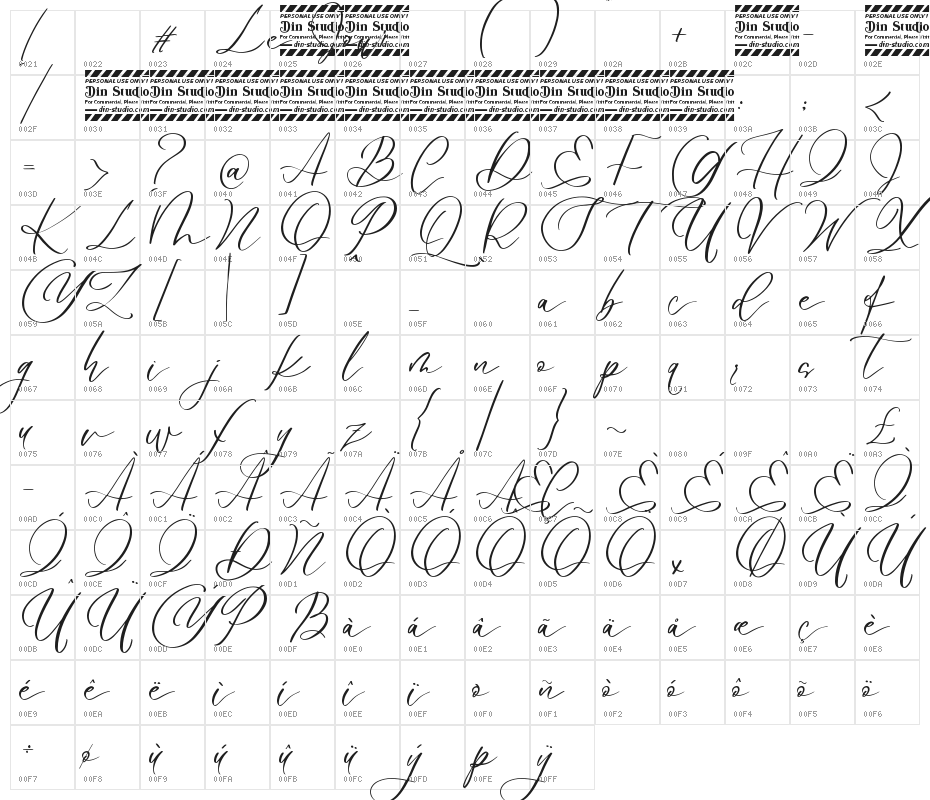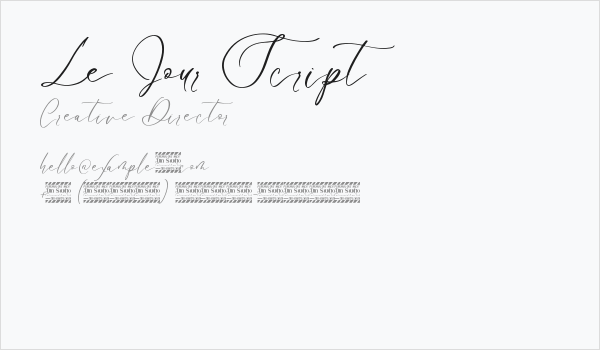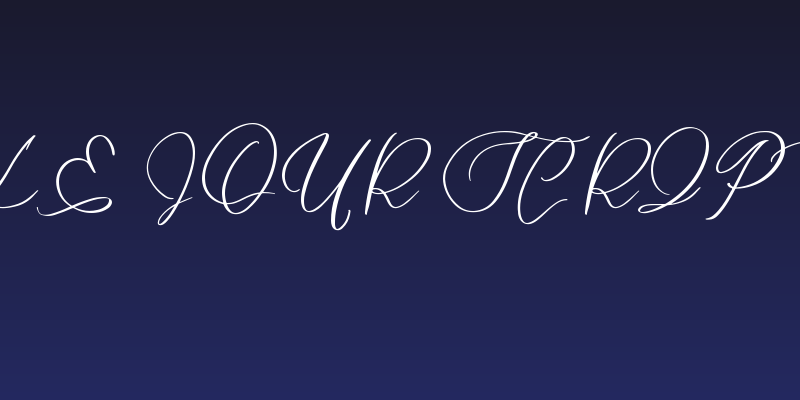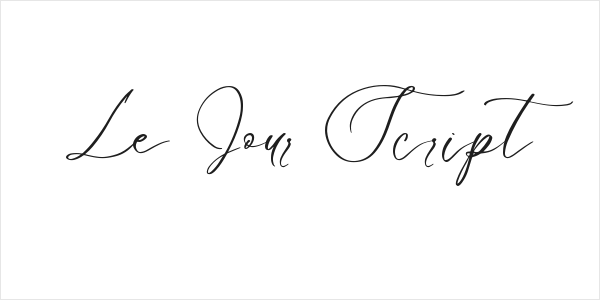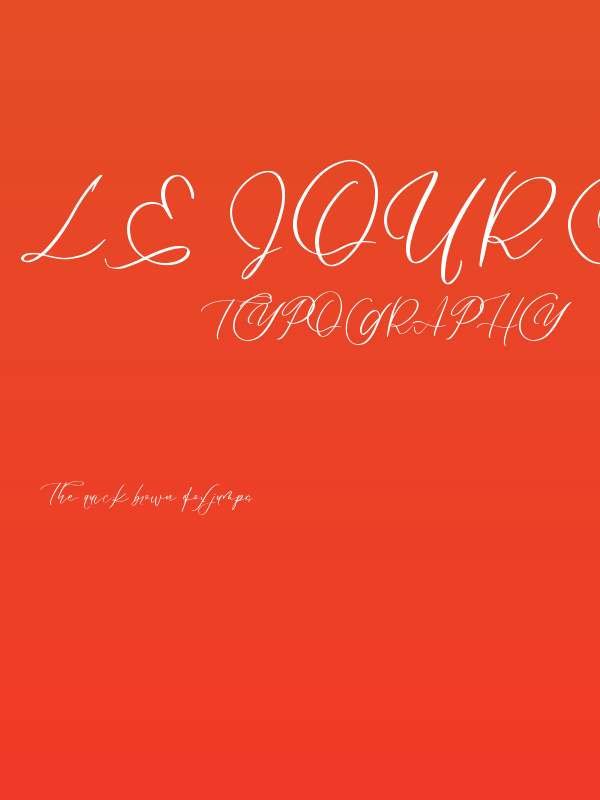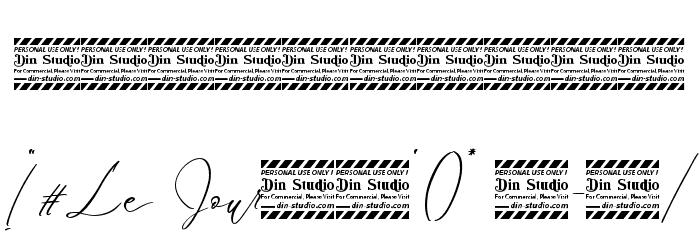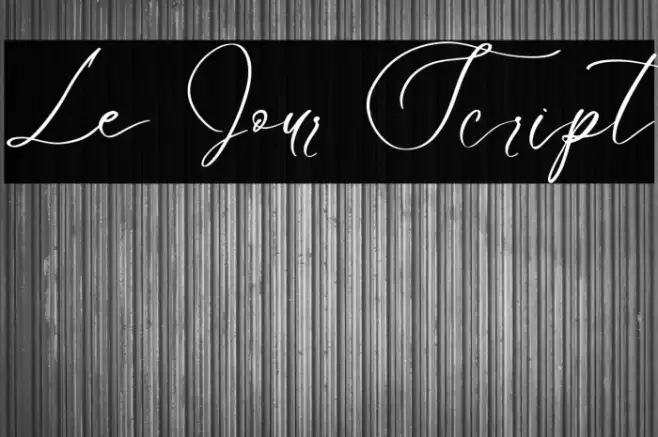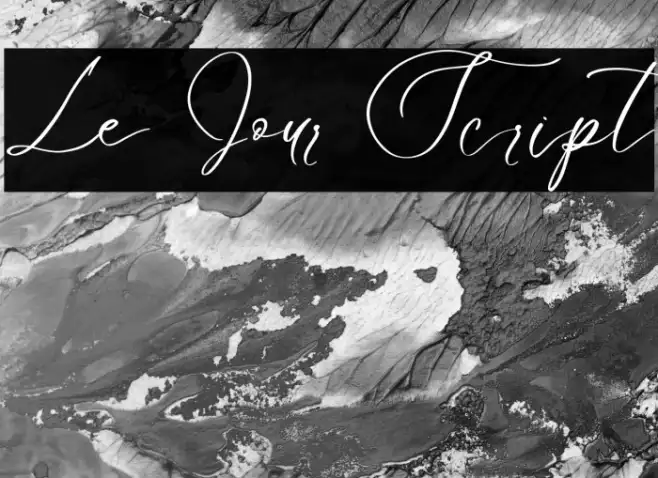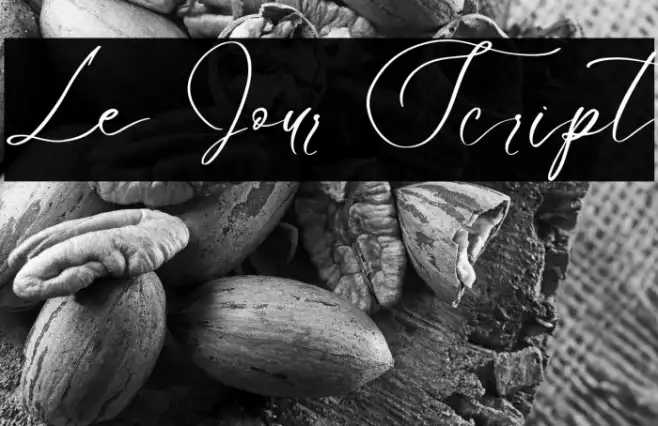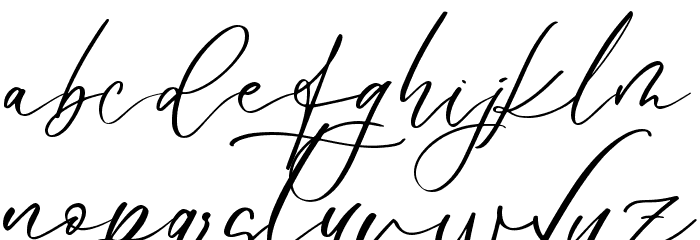
Le Jour Script Font
Le Jour Script Description
This elegant script font features fluid, sweeping strokes that mimic the natural flow of handwriting. The uppercase letters are characterized by their graceful loops and curves, while the lowercase letters maintain a consistent, flowing style. The font's delicate lines and varying stroke widths create a sense of movement and sophistication. It includes a full set of uppercase and lowercase letters, numbers, and a selection of special characters, making it versatile for various design needs. The overall appearance is both classic and modern, suitable for projects that require a touch of elegance.
| Overall Style | Elegant, Modern |
| Use Case | Headlines, Invitations, Logos |
| Proposed Projects | Ideal for wedding invitations, greeting cards, branding, and elegant logo designs. |